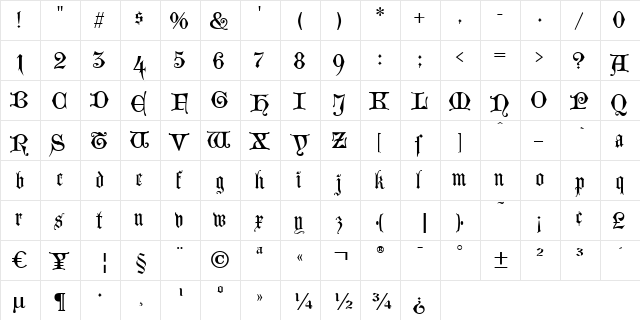
Lombardina Two Regular
Design Context for Lombardina Two Typeface
Lombardina Two is a composed and adaptable typeface that performs quietly and consistently across a wide range of design contexts.